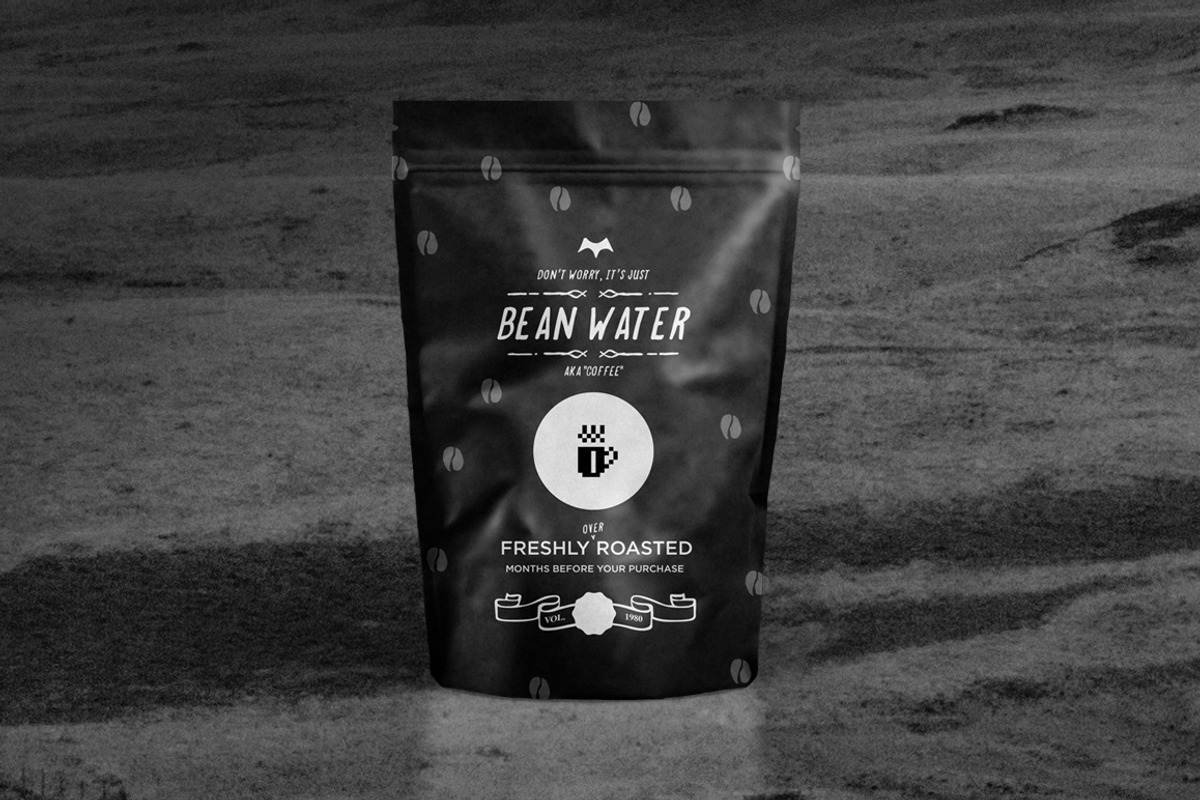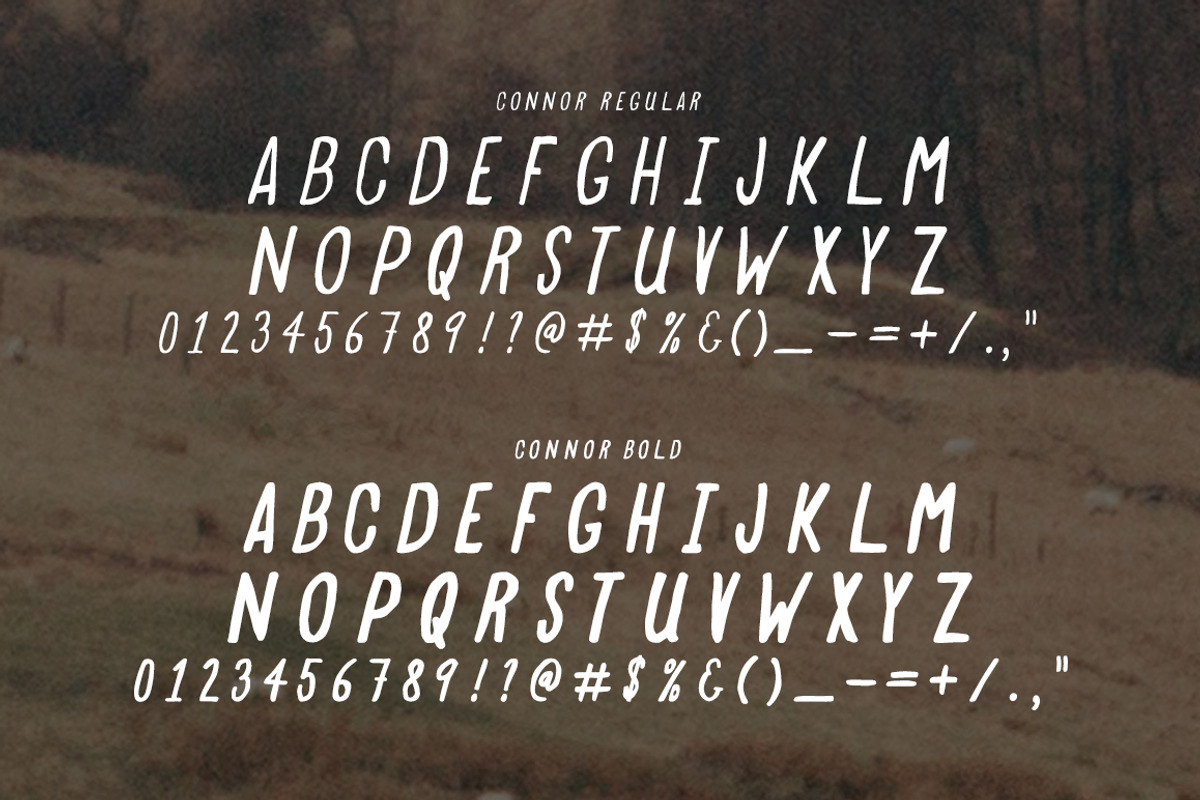
Connor / Handwritten Typeface
Connor / Handwritten Typeface by Dylan Roop Design Co. is a font selected for branding, posters, packaging, typography.
- Connor Regular
- Connor Bold
Why Connor / Handwritten Typeface is worth a look
Connor / Handwritten Typeface by Dylan Roop Design Co. fits naturally into Branding, posters, packaging, typography.